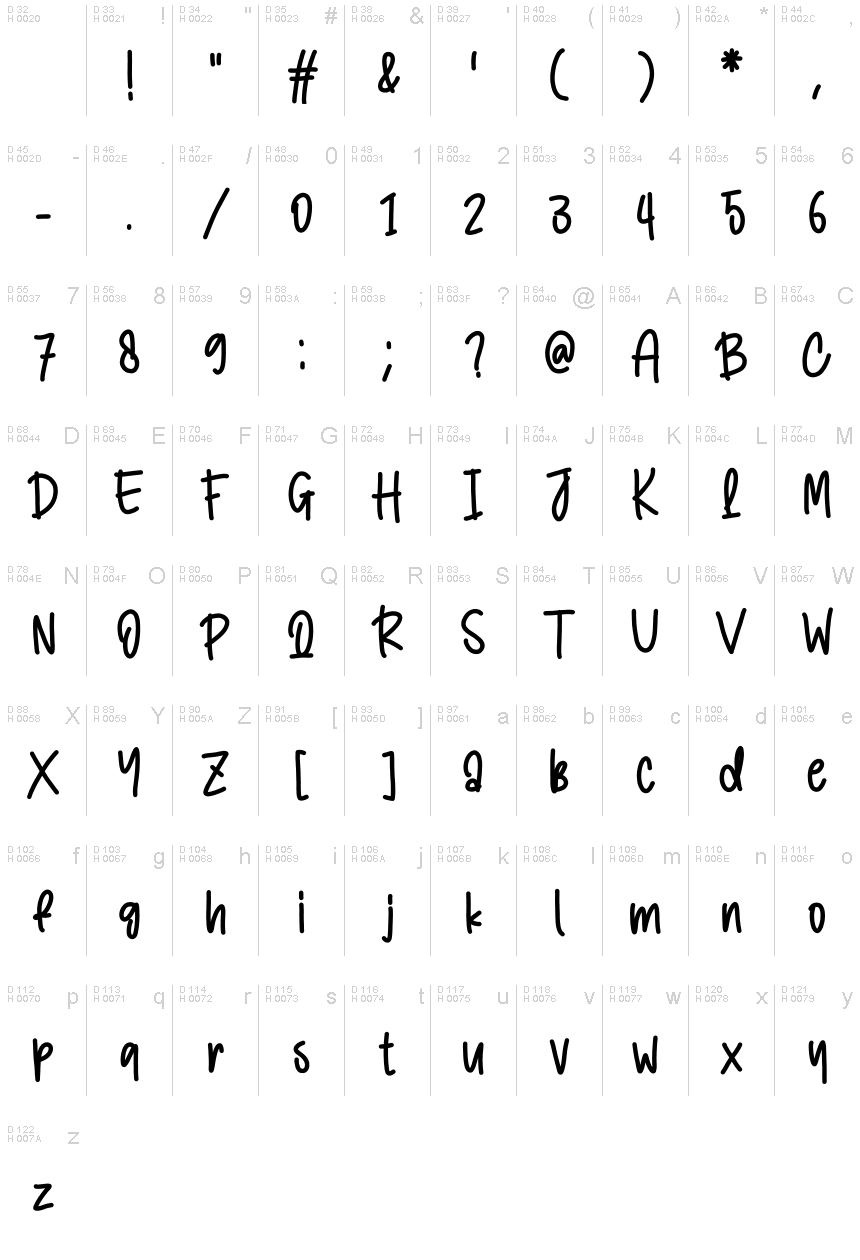
Learn To Write
Learn to Write, a handwritten font crafted by Andi Moz, exudes a delightful charm that captivates the eye. This condensed typeface boasts a sweet, friendly aesthetic, reminiscent of a heartfelt personal inscription. The organic, fluid strokes and playful ligatures lend an authentically handcrafted feel, creating a warm and inviting impression.
This font's versatility shines through, making it a wonderful choice for a variety of design applications. From wedding invitations and greeting cards to children's stationery and branding projects, the Learn to Write font adds a playful, approachable touch that resonates with audiences. Its whimsical yet legible character ensures that your designs maintain a personal, handmade quality.